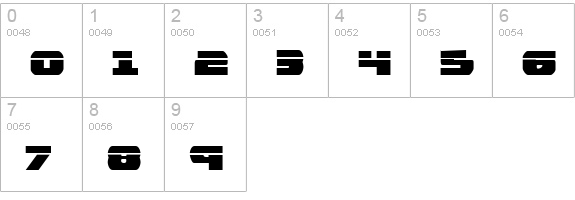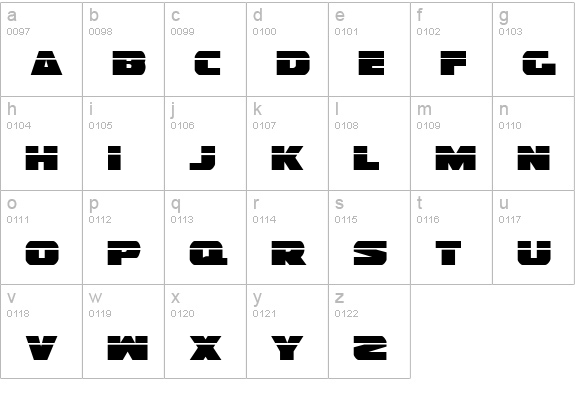
Guardian Laser is a sleek and futuristic font that combines sharp edges with a modern aesthetic. Perfect for projects that require a bold and cutting-edge look, this font exudes confidence and sophistication. Its clean lines and geometric shapes make it ideal for a wide range of design purposes, from branding to advertising to digital displays. What sets Guardian Laser apart is not just its striking appearance, but also the fact that it is available for free download at FontsMarket.com. This means that you can easily access this high-quality font without any cost, making it a valuable asset for designers, creatives, and enthusiasts alike. Embrace the power of Guardian Laser to elevate your projects and leave a lasting impression on your audience.